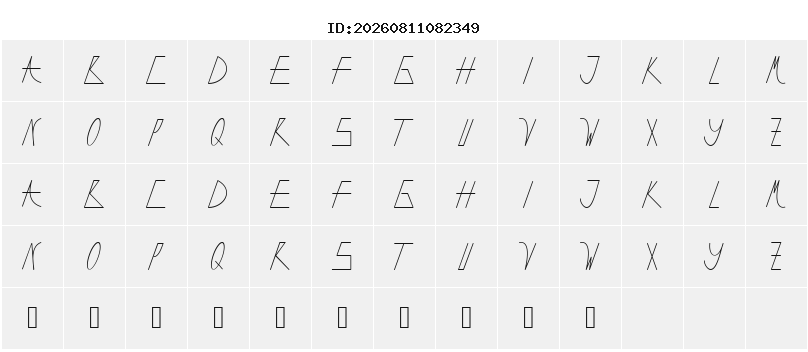
Romantica Preview
• Font Name: Romantica
• Font ID: FontForge 2.0 : Romantica : 18-6-2012
• Full Font Name: Romantica
• PostScript Name: Romantica
• Character Count: 53
About Romantica.ttf
Romantica.ttf is a modern, elegant sans-serif font designed for ultimate readability and visual harmony. Perfect for branding, headlines, web design, and print materials.